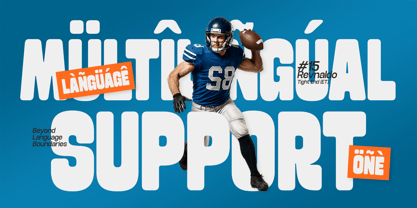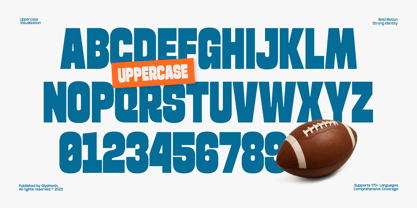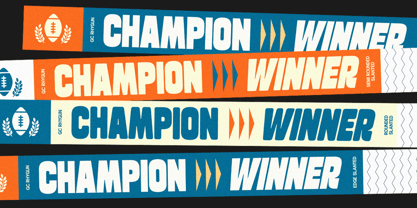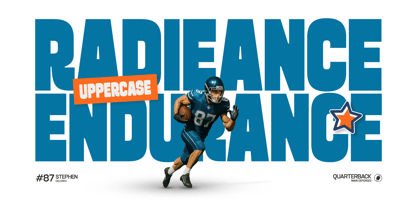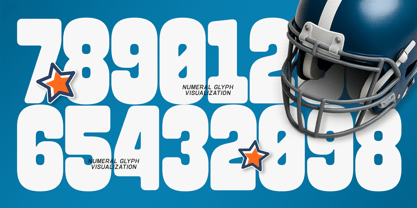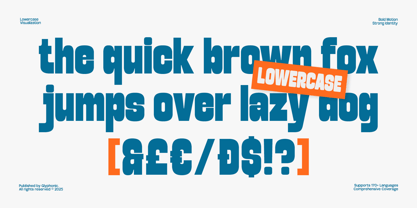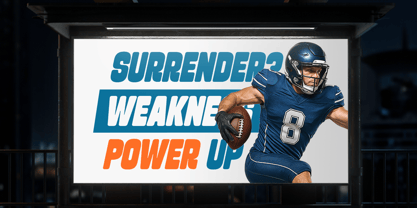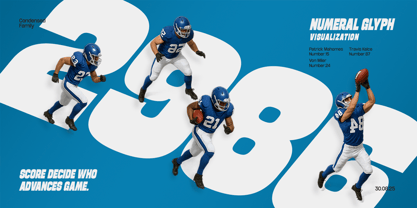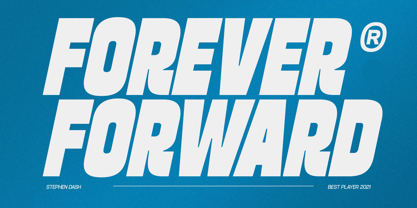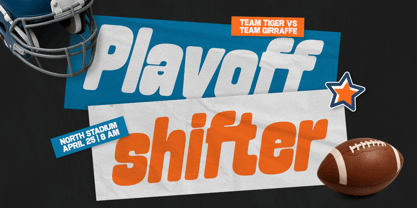
GC Rhygun
by Onyx Studio
The GC Rhygun Font Family was designed by Muhammad Hafiizh Solana and published by Onyx Studio. GC Rhygun contains 6 styles and family package options. More about this family
GC Rhygun is a bold and dynamic display typeface designed to bring energy, impact, and versatility to your projects. With its condensed form, smooth rounded edges, and forward-slanted style, it delivers a sense of motion and modern playfulness that stands out in any design. Perfect for sports branding, bold headlines, posters, packaging, and digital graphics, GC Rhygun balances strength with a fun, approachable character.
Whether you’re aiming for a sporty vibe, a modern playful look, or eye-catching typography for digital and print, GC Rhygun gives your design a confident, energetic voice.
Features:
• Uppercase & Lowercase
• Numbers & Punctuation
• Bold Condensed Form
• Rounded & Slanted Style
• Multilingual Support (170+ Languages)
Bring bold motion and playful strength to your typography with GC Rhygun.